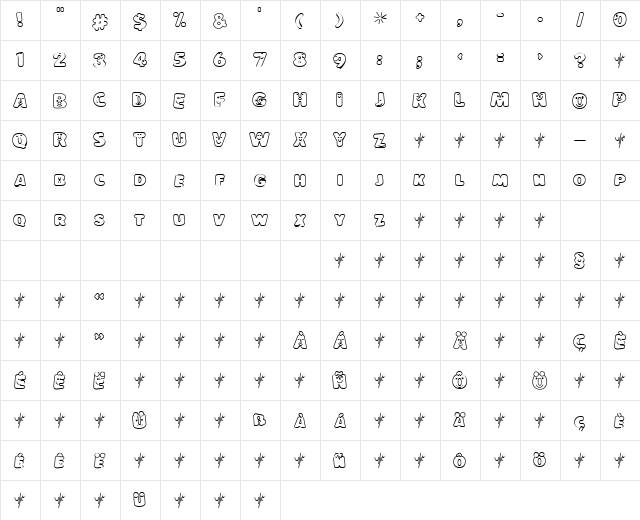
LoKinderSchrift Hell
LoKinderSchrift is a composed and adaptable typeface that performs quietly and consistently across a wide range of design contexts.